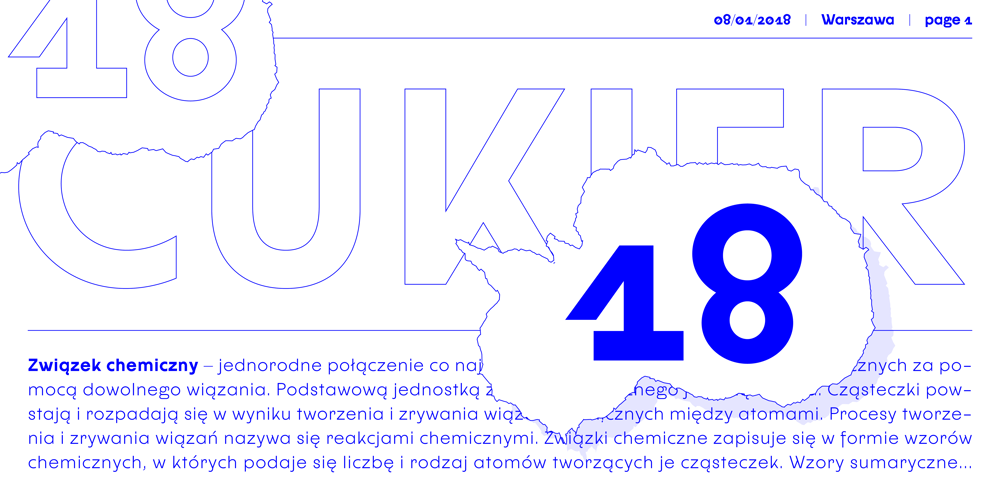
CUKIER Font Family was designed by Mateusz Machalski and published by Machalski. CUKIER contains 10 styles and family package options. After my previous typefaces inspired by the flavour of local typography (Massimo, Picadilly & Zigfrid), I’d like to present new one, called CUKIER. This family was designed mainly for branding purposes – visual identity of CUKIER.WORKS Agency. Cukier is a sans serif, geometric typeface, inspired by the vernacular typography from Zanzibar (Tanzania). A lot of letters have intentionally made mistakes in a drawing, and this it what makes the whole font unusual. Family consist 10 styles – 5 weights with italics.